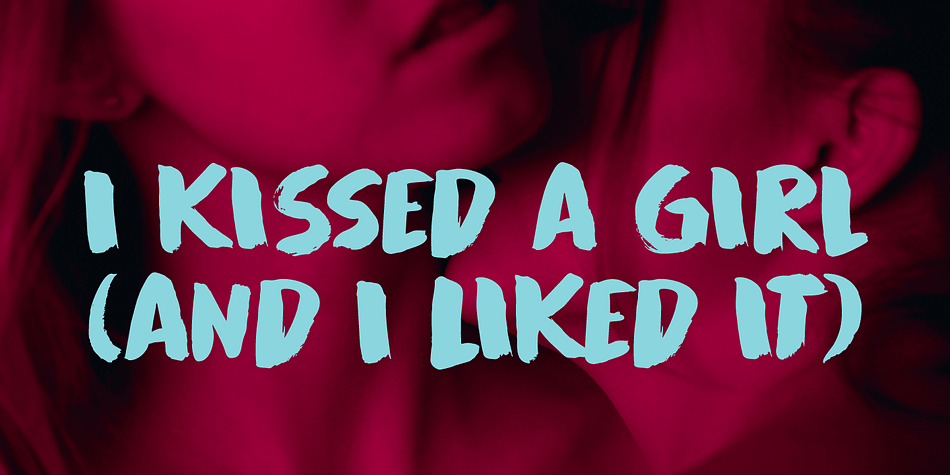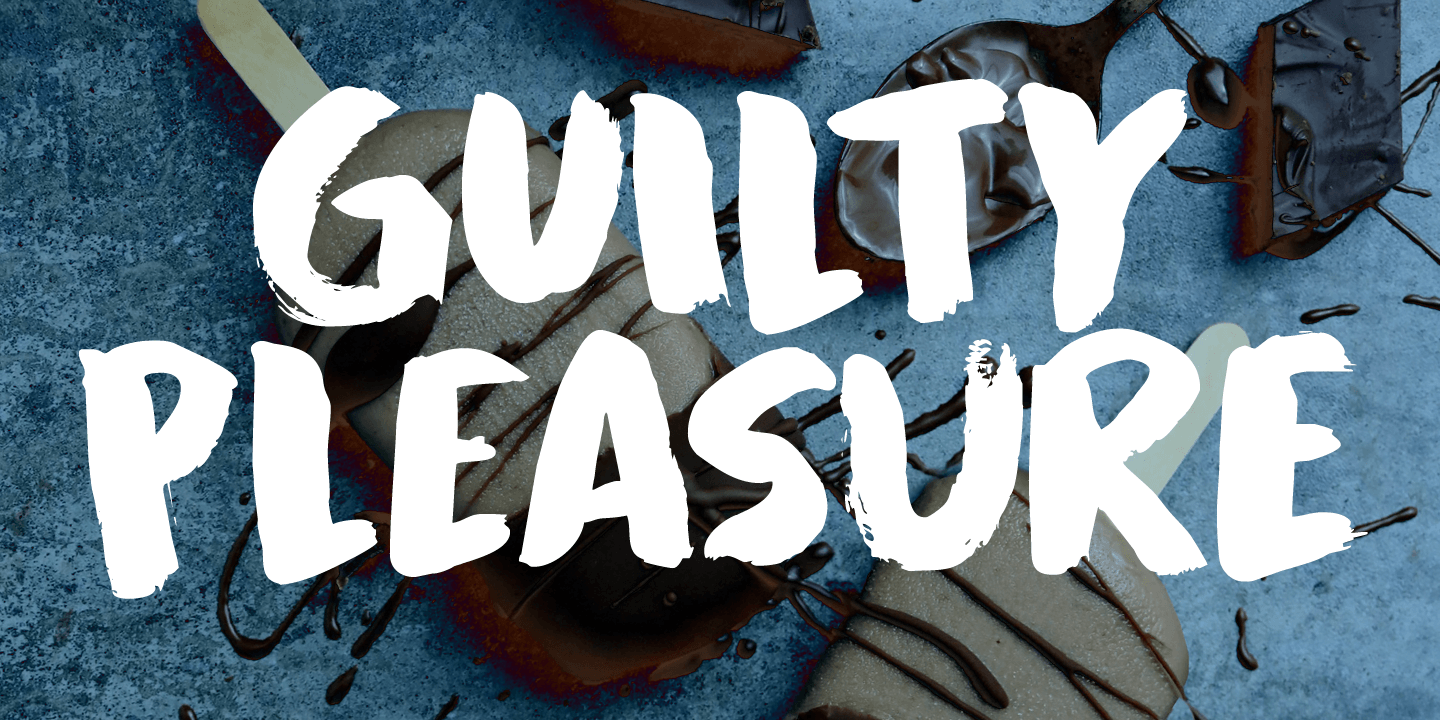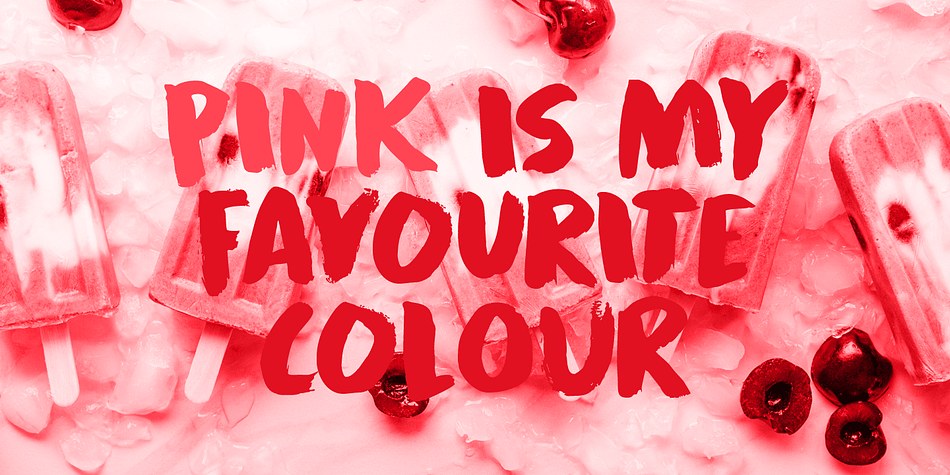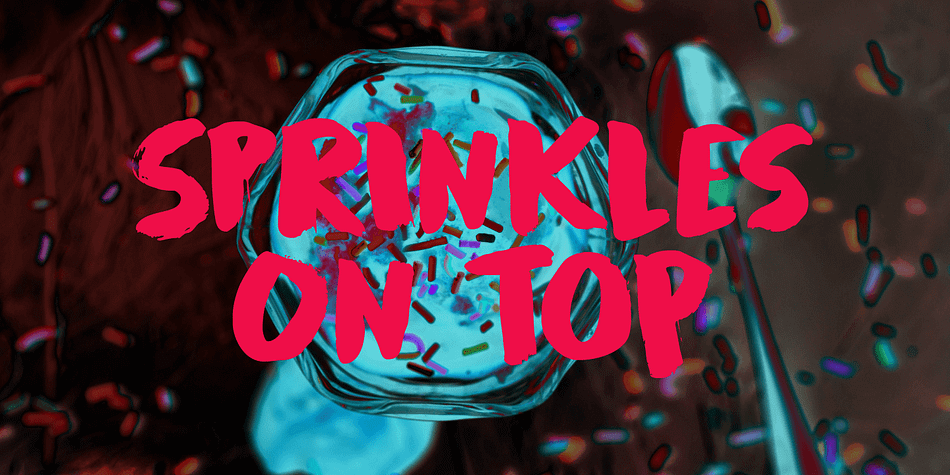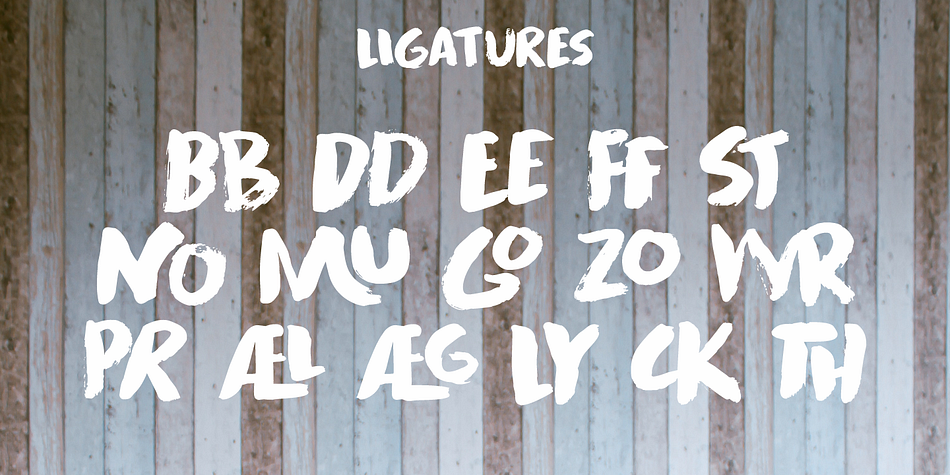
Designed by David Kerkhoff, Guilty Pleasure is a brush display and hand display font family. This typeface has two styles and was published by Hanoded.
Some time ago, my kids asked me what kind of sweets I really liked. To be honest, I don’t actually like sweets at all - never have, never will. BUT… you can wake me up for chocolate and ice cream! Those are my guilty pleasures!
Guilty Pleasure is a handmade font. I used China Ink and a brush to create all the glyphs. Guilty Pleasure is a very distinct display font. I recommend you use it for your ice cream or chocolate packaging… but that, of course, is entirely up to you!